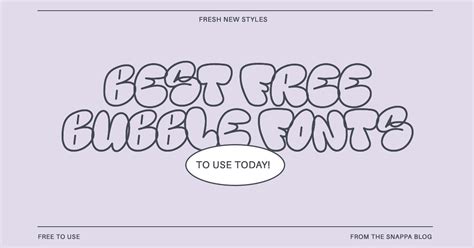
Create Stunning Artwork with Free Procreate Bubble Fonts: Add Magical Charm to Your Designs
Have you ever wanted to add a touch of magic to your digital artwork? Do you struggle with finding the perfect font to enhance your designs?
Look no further than free Procreate bubble fonts! These whimsical and creative fonts can add that extra charm and personality to your designs that you've been searching for.
With these fonts, you can create stunning artwork that will capture your audience's attention and leave a lasting impression. From quote graphics to social media posts, the possibilities are endless.
So why not add some magical charm to your designs with free Procreate bubble fonts? Your artwork will thank you.
The Power of Procreate Bubble Fonts
If you are an artist or designer, you know the importance of typography in graphic design. Finding the perfect font can make all the difference and bring your artwork to life. One popular trend in typography is bubble fonts. These playful and quirky fonts add a magical charm to any design. With numerous free Procreate bubble fonts available, it's easy to incorporate them into your artwork to create something truly stunning.
What is Procreate?
Table Comparison of Top Free Bubble Fonts for Procreate
| Font Name | Creator | Style | Download Link |
|---|---|---|---|
| Bubblegum | Shelan) | Playful | Download |
| Starfish | zinggi | Cartoonish | Download |
| Bubbleboddy | nicksfonts | Bold | Download |
Why Choose Procreate Bubble Fonts?
The main reason to choose Procreate bubble fonts for your designs is their playfulness and quirky nature. They bring a lighthearted and fun feel to any piece of artwork. Additionally, since there are numerous free options available, you can experiment with different styles to see which one best suits your project.
Examples of Artwork Created with Procreate Bubble Fonts
Take a look at some examples of artwork created with Procreate bubble fonts to see just how versatile they can be:
Cute and Quirky Greeting Cards
One example of how bubble fonts can be used is in greeting cards. The cute and quirky nature of the fonts can help bring a cheerful and celebratory tone to the card. For example, using the Bubblegum font to say Happy Birthday adds a fun and playful touch.
Funky and Fun Logo Design
Another way to use Procreate bubble fonts is in logo design. They can help bring an element of fun and personality to a company's branding. Using a bold and vibrant font like Bubbleboddy for a restaurant logo can create a funky and memorable design.
Whimsical Children's Book Illustrations
Finally, Procreate bubble fonts are perfect for whimsical children's book illustrations. Their playful and lively nature can capture a child's imagination and draw them into the story. Using Starfish font for the title of a children's book brings a charming and cartoonish feel to the cover art.
In conclusion, Procreate bubble fonts are an excellent way to add magical charm to your designs. With numerous free options available, it's easy to incorporate them into your artwork and bring a playful and quirky feel. Whether you're creating greeting cards, logos, or children's book illustrations, using bubble fonts can help take your artwork to the next level. So why not try experimenting with them today?
Procreate bubble fonts can add a fun, whimsical touch to your designs. Try using them for titles, headings, or quotes in your artwork. Experiment with different colors and layering techniques to create a truly magical effect.